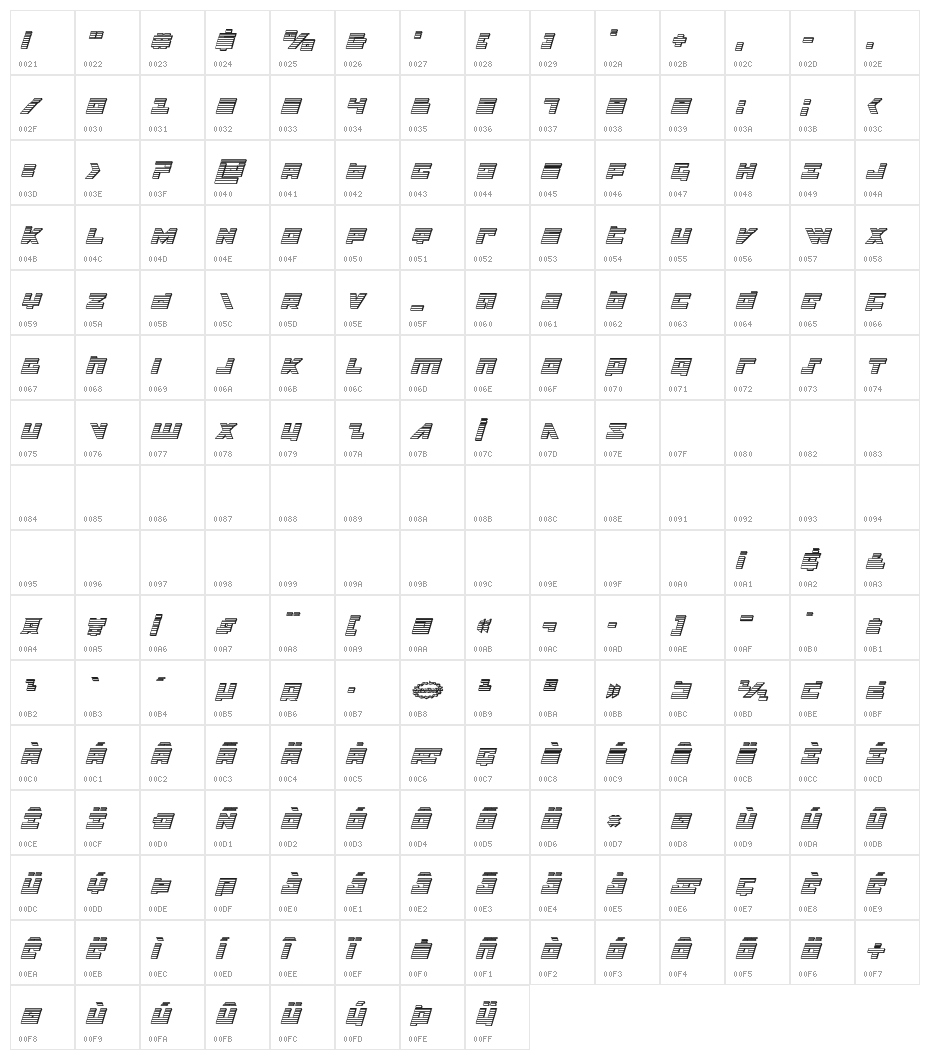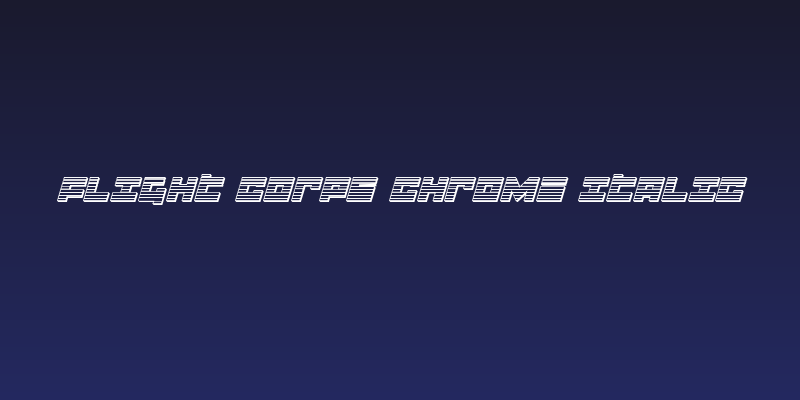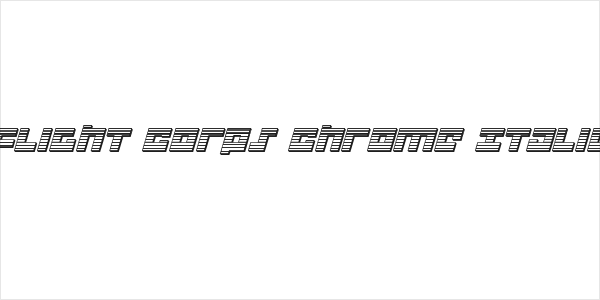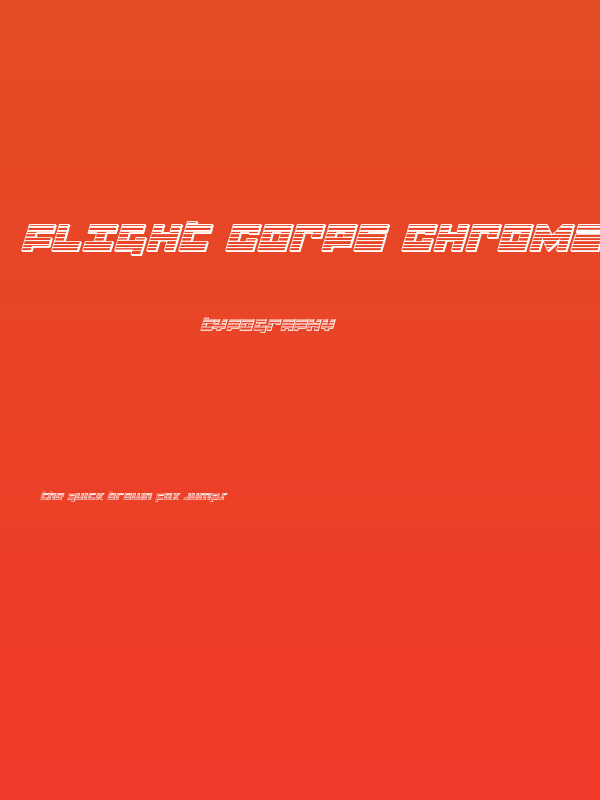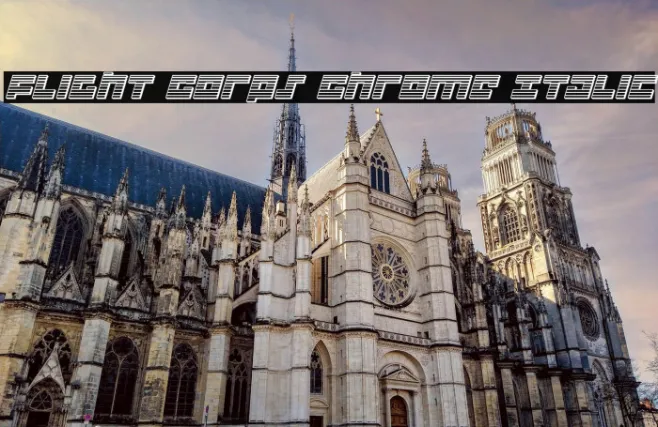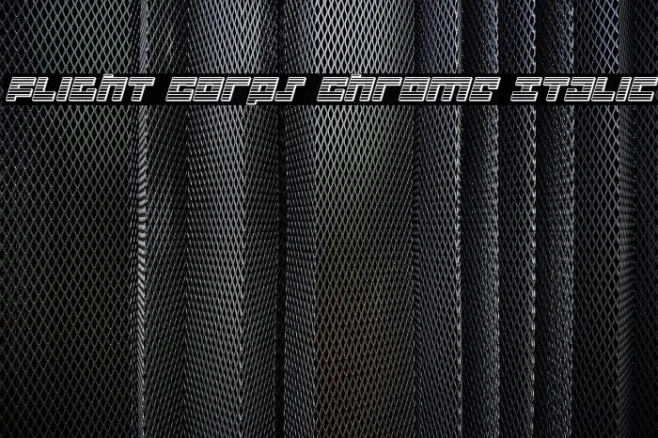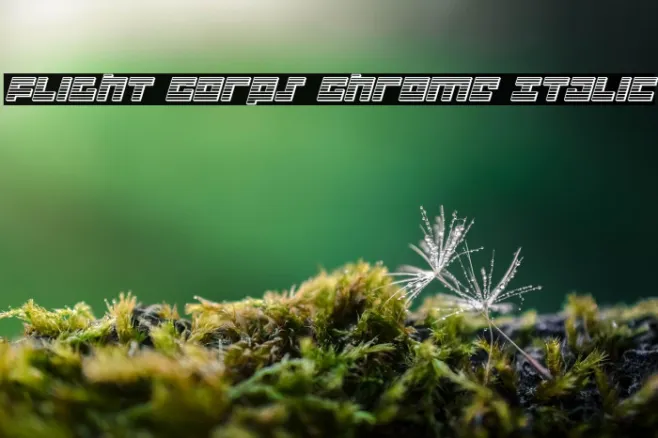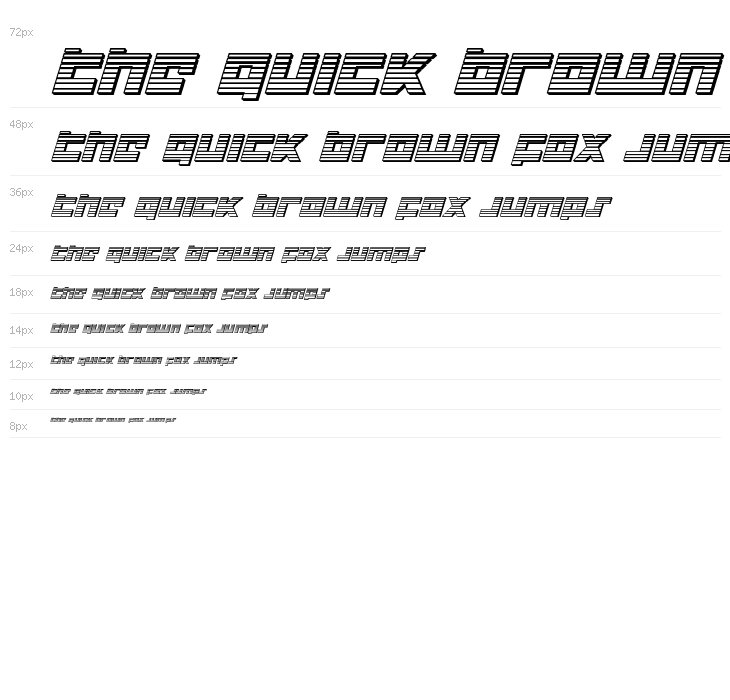
Flight Corps Chrome Italic Font
Flight Corps Chrome Italic Description
This font features a bold, futuristic design characterized by its italicized, chrome-like appearance. Each character is composed of multiple parallel lines, creating a striped effect that gives a sense of movement and speed. The angular, geometric shapes of the letters enhance its modern and dynamic feel, making it stand out in any design. The uppercase and lowercase letters maintain a consistent style, while the numerals and special characters integrate seamlessly with the overall aesthetic. This font is ideal for projects that aim to convey a sense of innovation and forward-thinking.
FLIGHT-CORPS-CHROME-ITALIC UPPERCASE
FLIGHT-CORPS-CHROME-ITALIC LOWERCASE
FLIGHT-CORPS-CHROME-ITALIC OTHER CHARS
| Overall Style | Futuristic, Modern |
| Proposed Projects | Ideal for sci-fi themed designs, technology branding, video game titles, and futuristic posters. |